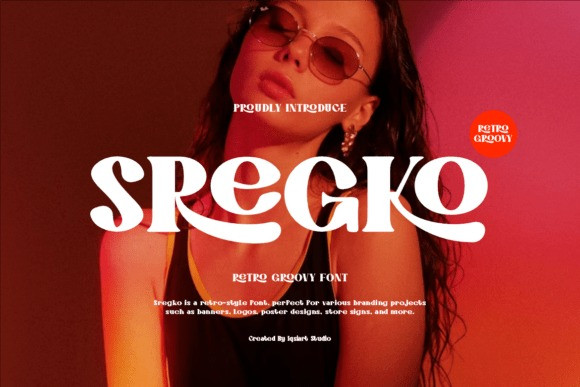
Sregko Font
Sregko Font is a vibrant and expressive retro-style display typeface that perfectly captures the groovy essence of the 1970s.
This Sregko typeface features heavy, curvaceous letterforms with dramatic, liquid-like swashes that create a powerful visual rhythm, making it ideal for high-impact branding, fashion editorial covers, and nostalgic poster designs. The bold and funky nature of the Sregko font ensures your headlines pop with personality, offering a “retro groovy” aesthetic that is currently dominating modern design trends.
Whether you are crafting a standout logo for a boutique or eye-catching store signs, the Sregko typeface provides a confident and stylish vintage vibe that turns any project into a visual centerpiece.